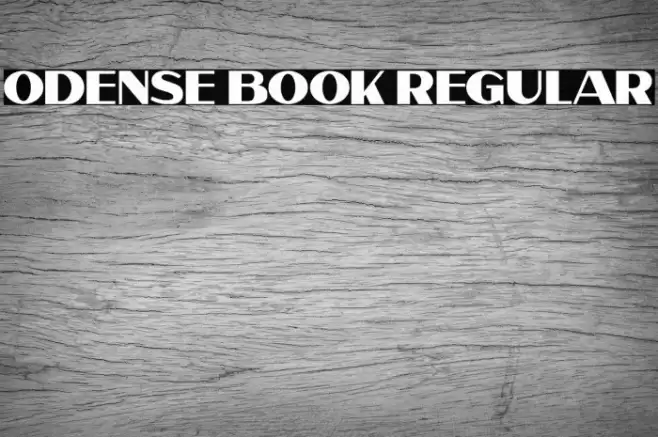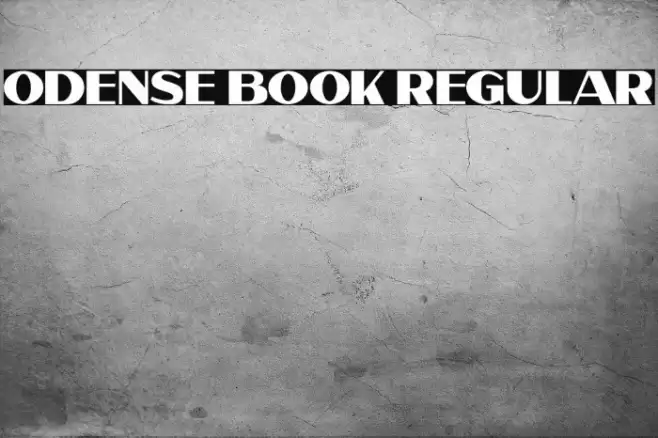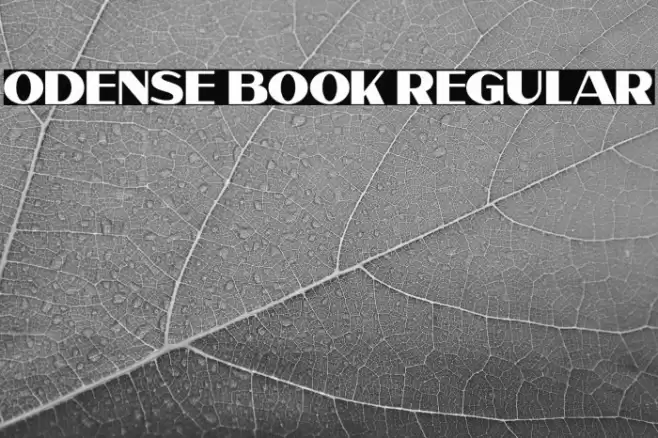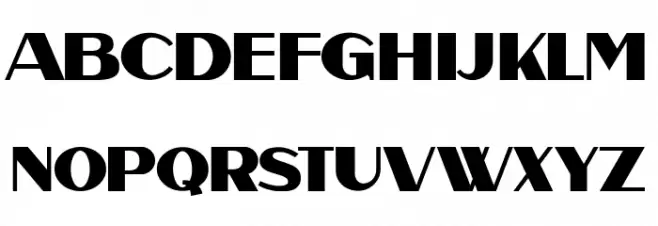
Odense Book Regular Font
Odense Book Regular Description
This font features a bold and striking design with a strong presence. The characters are crafted with a high contrast between thick and thin strokes, giving them a dramatic and impactful look. The uppercase letters are particularly prominent, with wide, expansive forms that command attention. The overall style is modern and assertive, making it suitable for projects that require a bold statement. The font's geometric shapes and clean lines contribute to its contemporary feel, while the slight variations in stroke width add a touch of elegance and sophistication.
A bold, high-contrast font with a modern and assertive style from Uncategorized fonts.
- Proposed Projects: Ideal for headlines, branding, posters, and any design that requires a strong visual impact.
- Width: Expanded